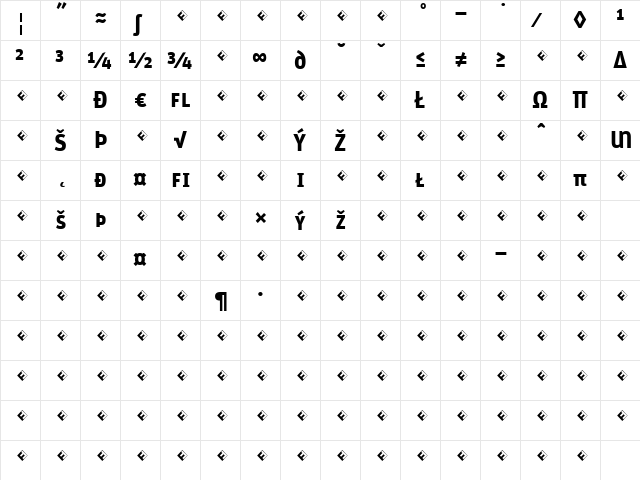
Unit-BoldSCExpert Regular
| Foundry | Erik Spiekermann, Christian Schwartz; published by FontShop International for the FontFont Library |
| Designer | Erik Spiekermann, Christian Schwartz |
Design Context for Unit-BoldSCExpert Typeface
Unit-BoldSCExpert offers clean, dependable letterforms without strong stylistic allegiance, making it a practical choice for designers who need flexibility. The heavy weight commands attention and anchors typographic hierarchies.